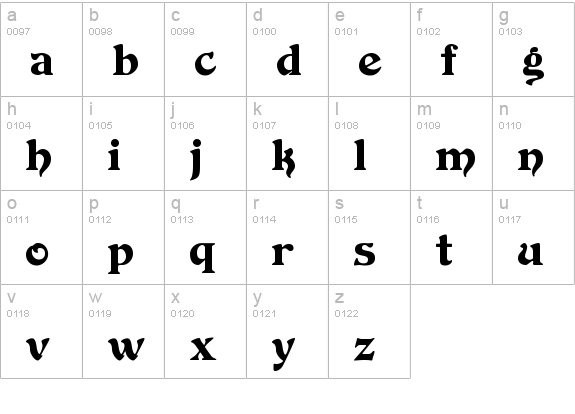
Duvall font is a modern and stylish typeface that exudes sophistication and elegance. With its sleek lines and sleek curves, this font is perfect for adding a touch of class to any project. Whether you're designing a logo, creating a poster, or crafting a wedding invitation, Duvall font will elevate your design to the next level. The best part about Duvall font is that it is completely free! You can download this stunning typeface at FontsMarket.com and start using it in your projects right away. Don't miss out on the opportunity to add a touch of luxury to your designs with Duvall font. Download it now and let your creativity shine!